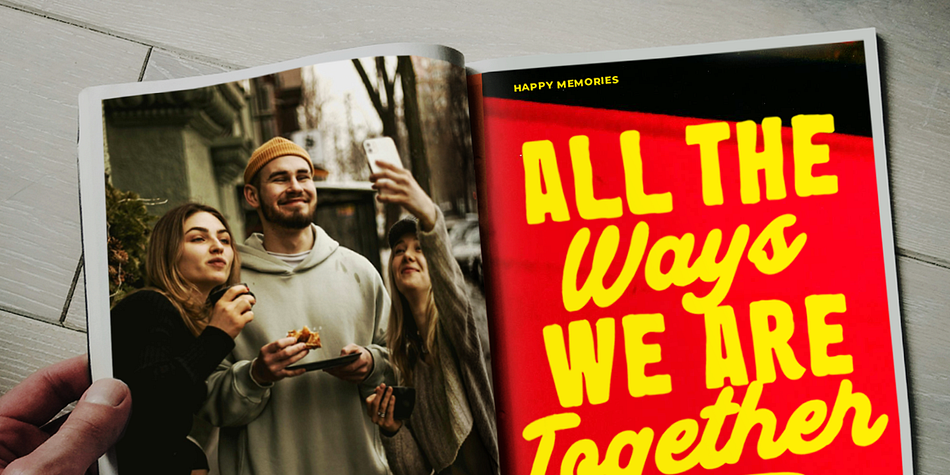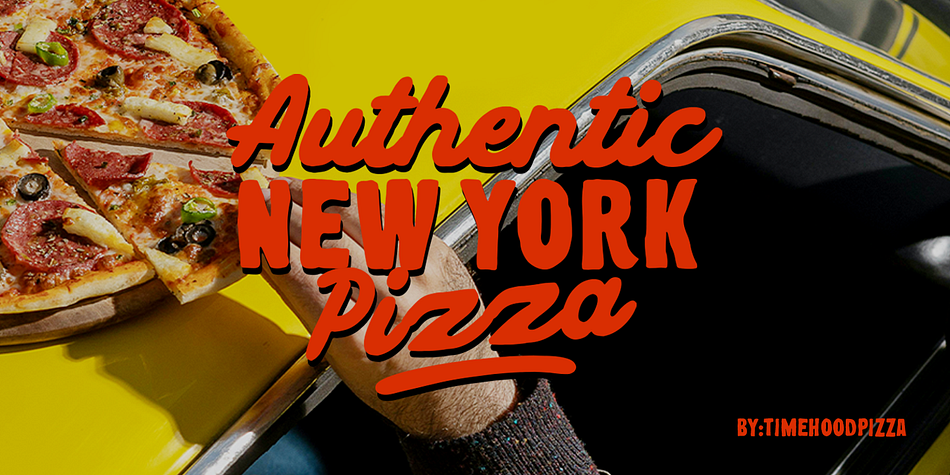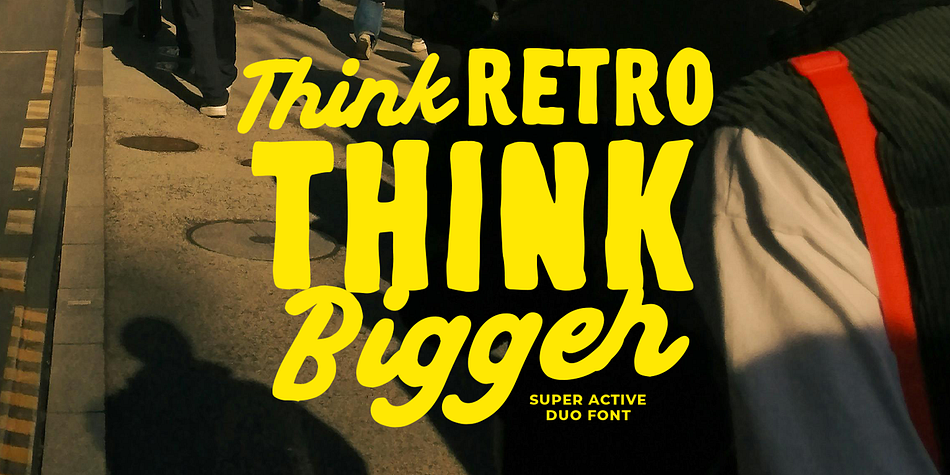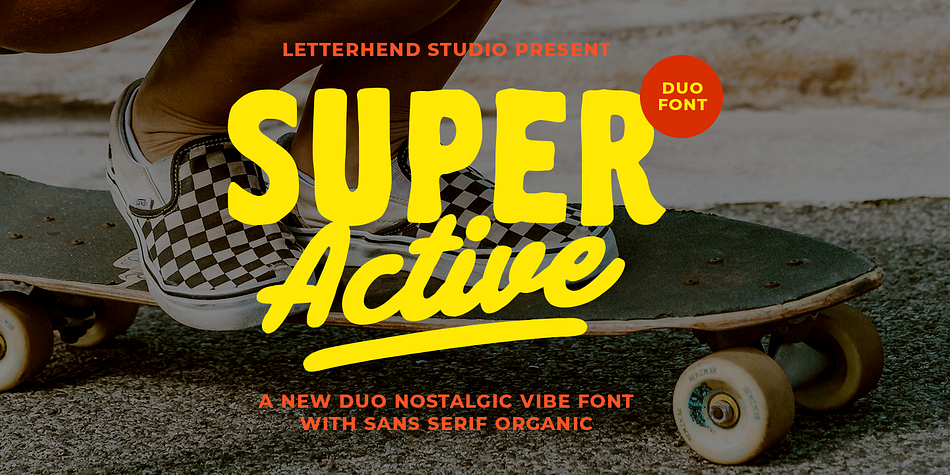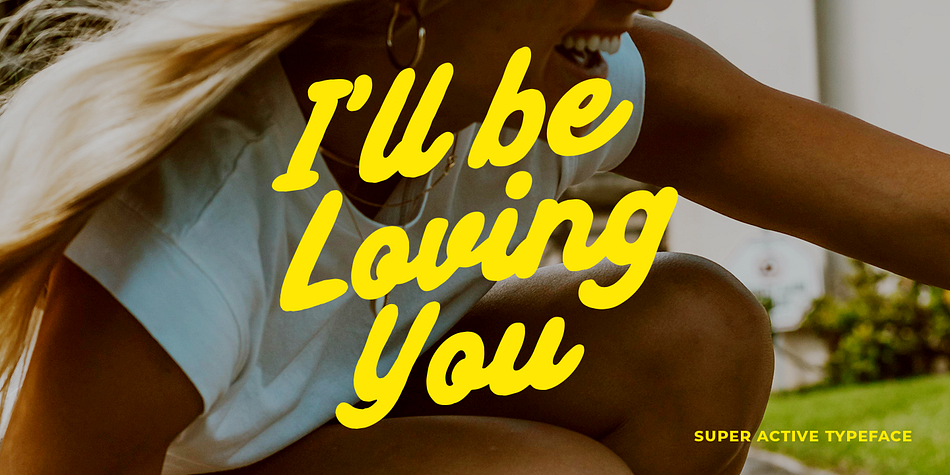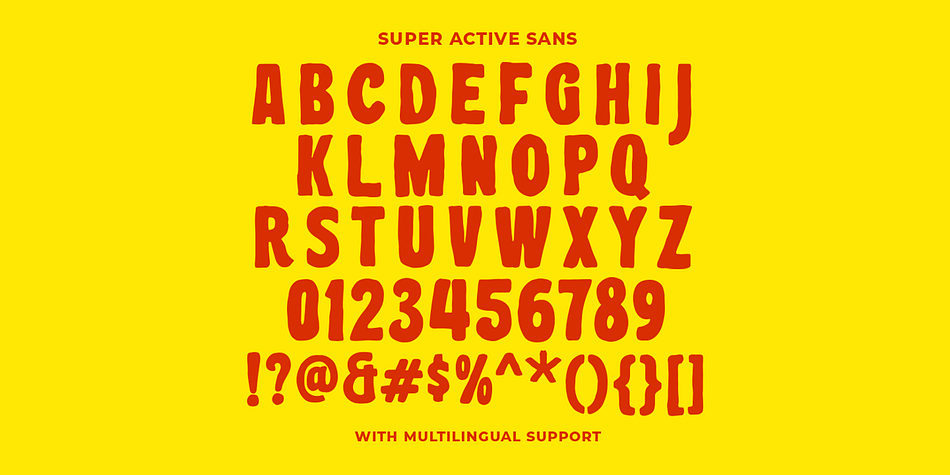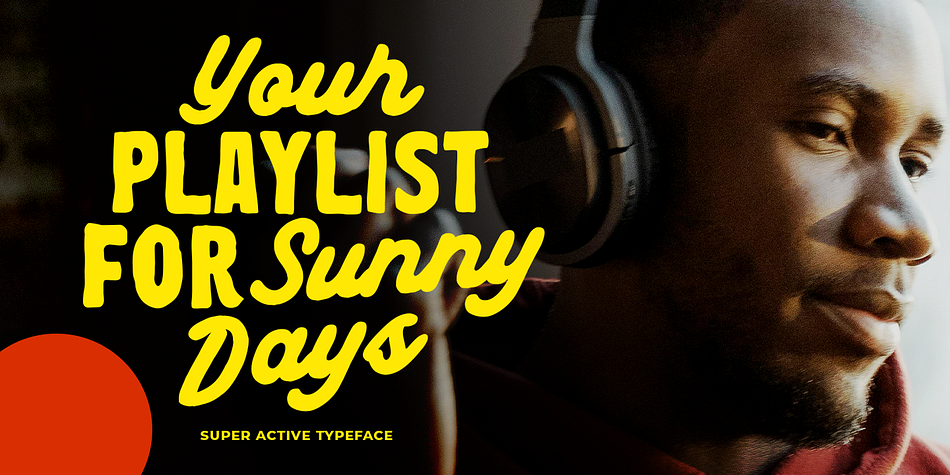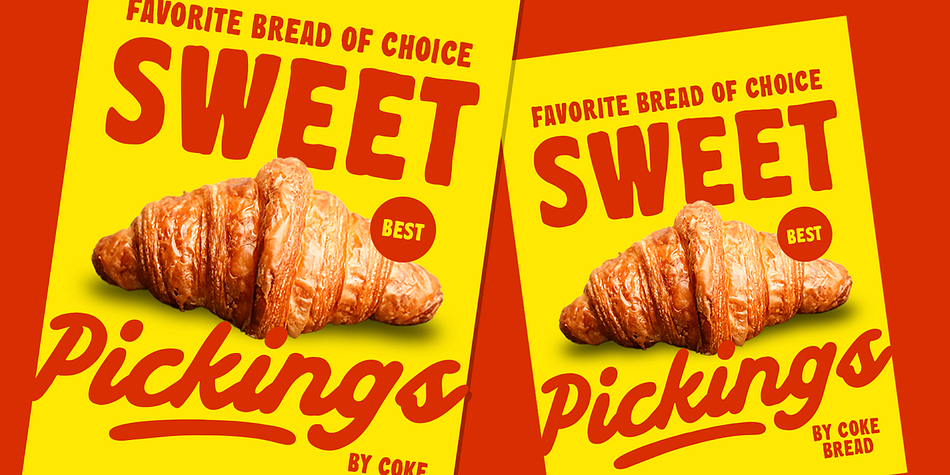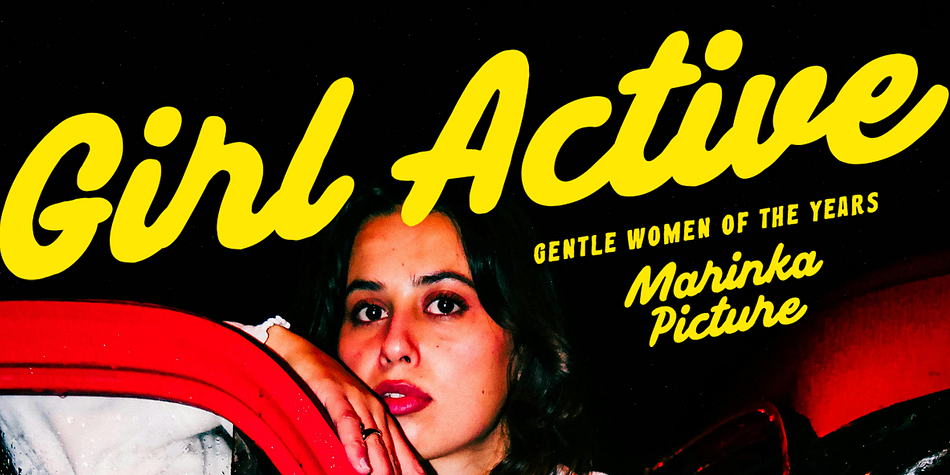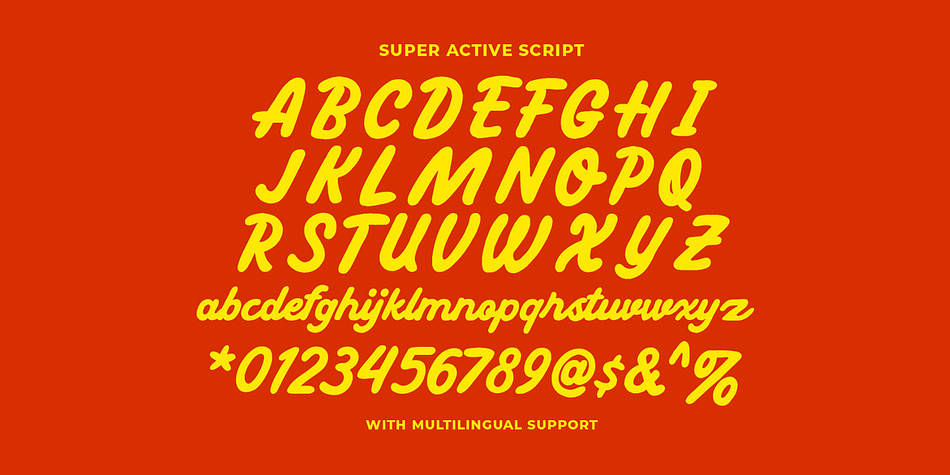
Super Active
Designed by Hendry Juanda, Super Active is a sans serif font family. This typeface has two styles and was published by Letterhend Studio.
Super Active is a bold and playful duo font inspired by nostalgic vibes and youthful energy. Featuring an organic sans serif paired with a dynamic script, this font duo is perfect for branding, poster designs, apparel, social media graphics, and any project that calls for a fun and energetic look. With its retro-modern aesthetic and sporty edge, Super Active brings a lively character to your creative work.
- Script& Sans
- Alternates & Ligatures
- Multilingual Support